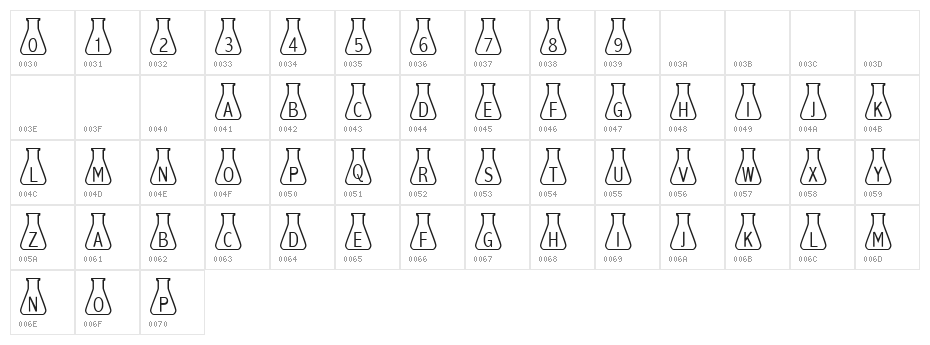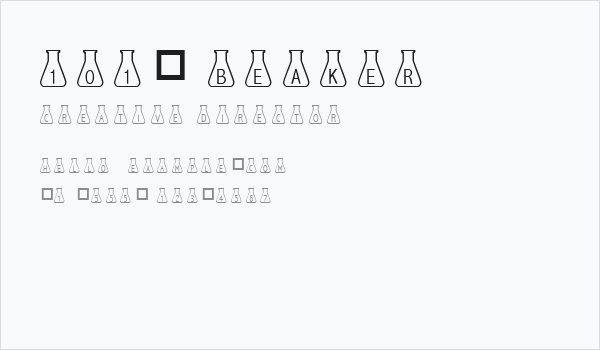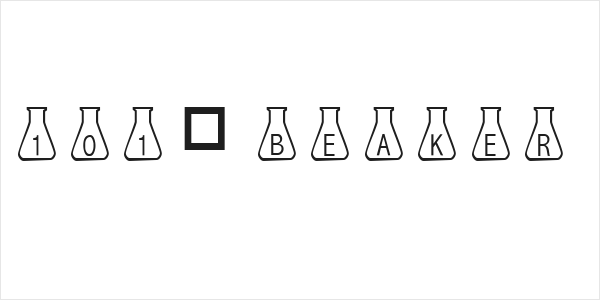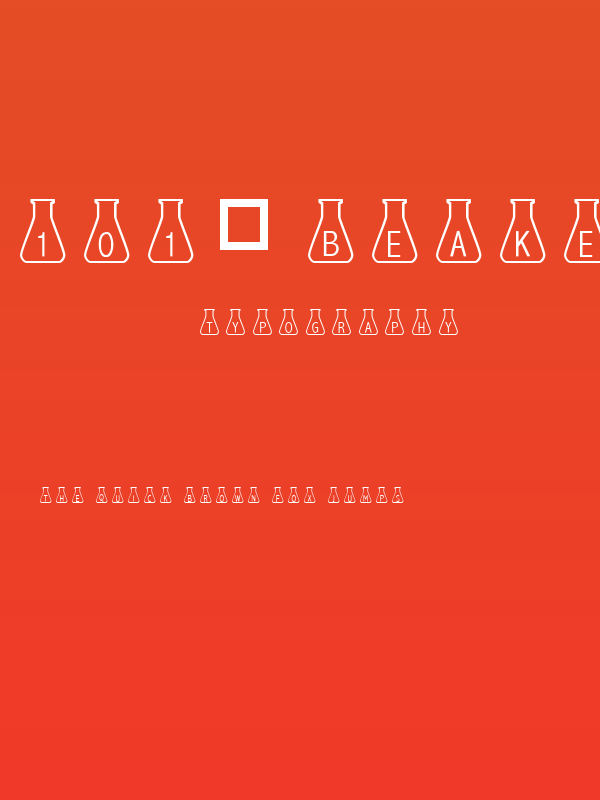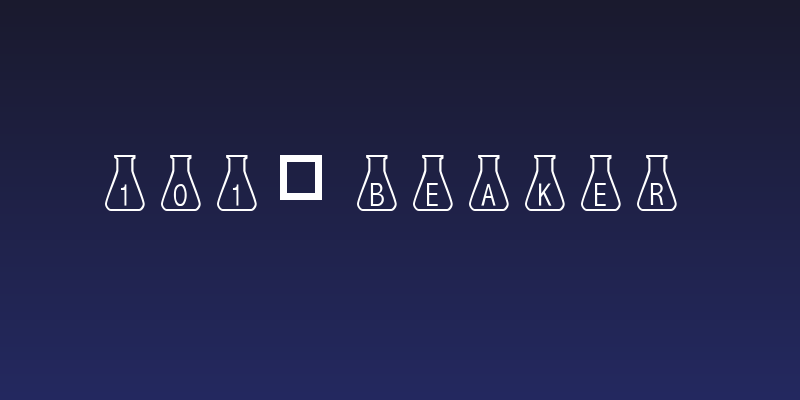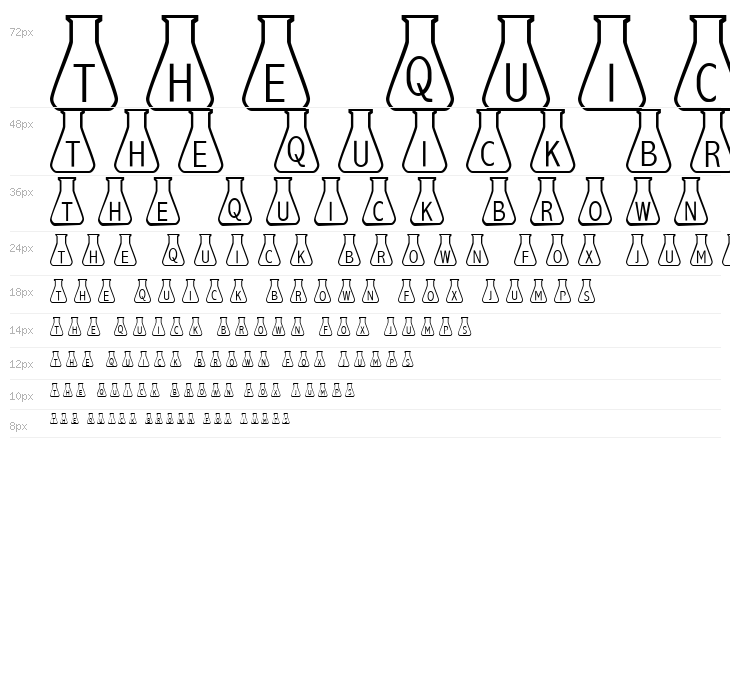
101! Beaker Font
101! Beaker Description
This font features characters enclosed within stylized beaker shapes, giving it a unique and playful scientific theme. Each letter and number is centered within a beaker outline, maintaining a consistent and uniform appearance. The design is clean and minimalistic, with a focus on the novelty of the beaker shape rather than intricate details. This font is particularly suitable for projects that aim to convey a sense of science, experimentation, or education in a fun and engaging way. The characters are evenly spaced, ensuring readability while maintaining the thematic design.
| Proposed Projects | Science fair posters, educational materials, children's books, themed party invitations. |